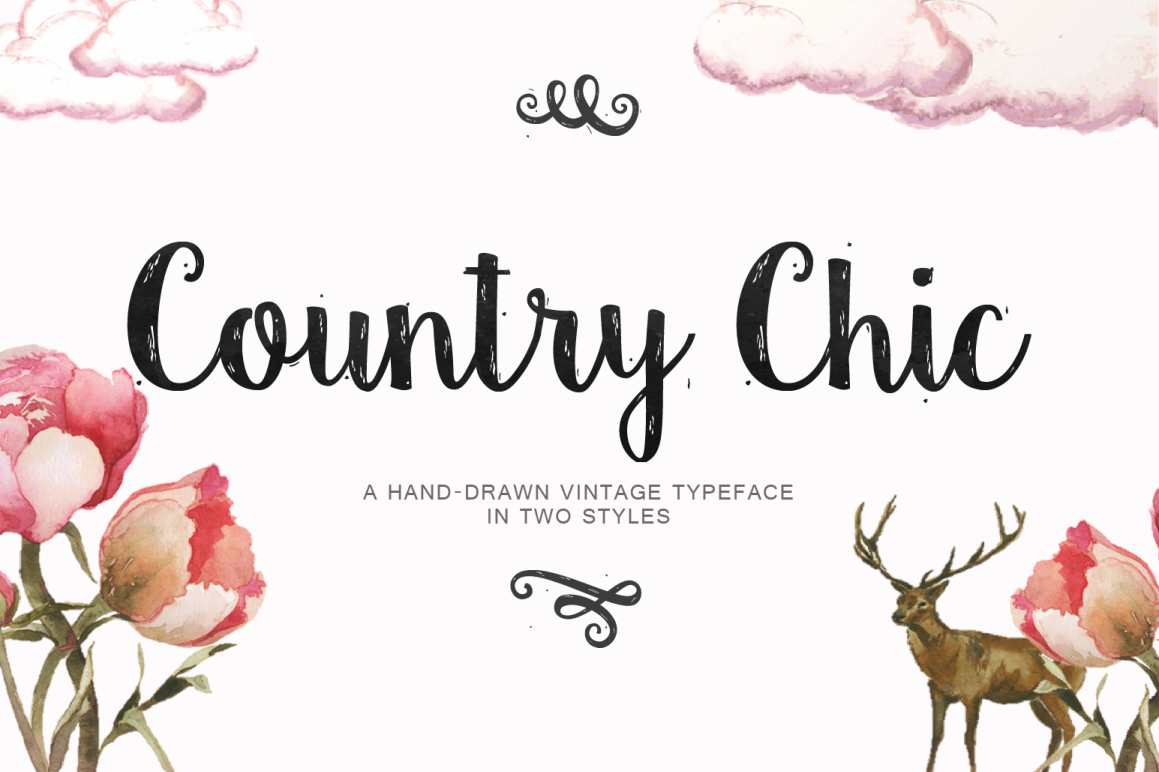
Created By Emily Spadoni
Country Chic Script
Country Chic
Country Chic Italic
Country Chic Script is a new hand crafted modern vintage style typeface.
She's chic, she's sweet, and she's a little shabby.
This script doesn't miss a single detail in her sweet and shabby lines. Even her ornaments are a bit worn.
As If she wasn't sweet enough - an italic version is also included!
6 ornaments: